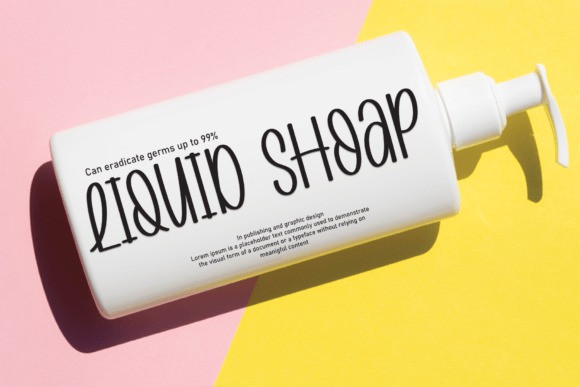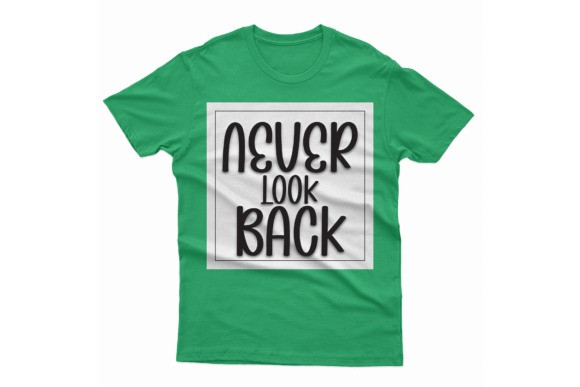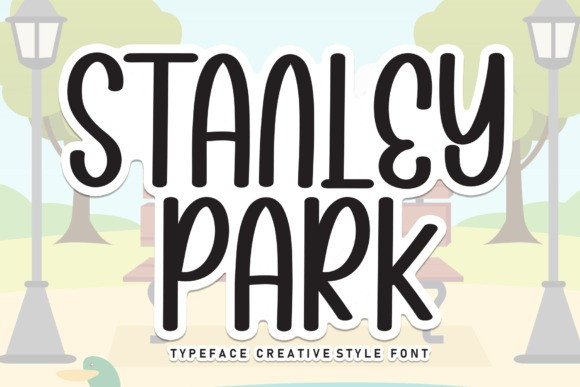
Stanley Park Font
Stanley Park Font is a sweet and friendly handwritten font. Cute and fun, this font is ideal for writing wedding invitations, cards, or any other design that might need a fun touch!